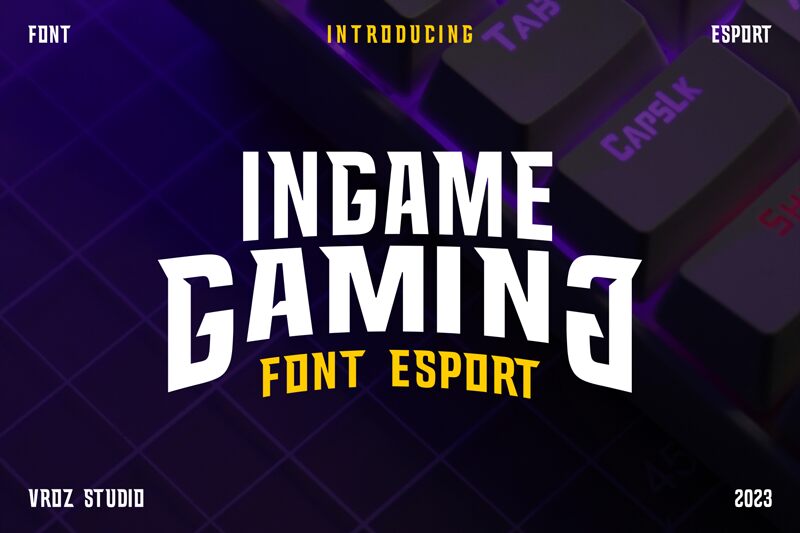
INGAME
Ingame font, designed by Vroz Studio, emerges as an eye-catching display typeface that masterfully blends techno aesthetics with modern design principles. Its striking condensed structure draws the eye, making it perfect for headlines and bold statements. The clean lines and sharp angles evoke a sense of energy and innovation, lending a futuristic touch to any project.
Visually dynamic, the Ingame font finds its niche in digital interfaces, gaming graphics, and tech branding. It excels in environments where clarity meets style-perfect for promotional materials or product packaging that aim to captivate. With its distinctive character, Ingame brings a unique flair that enhances visual storytelling across diverse applications.